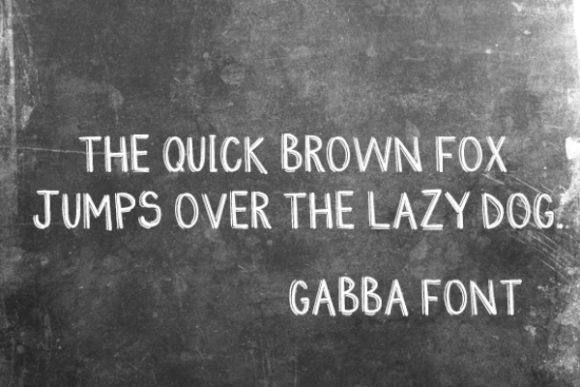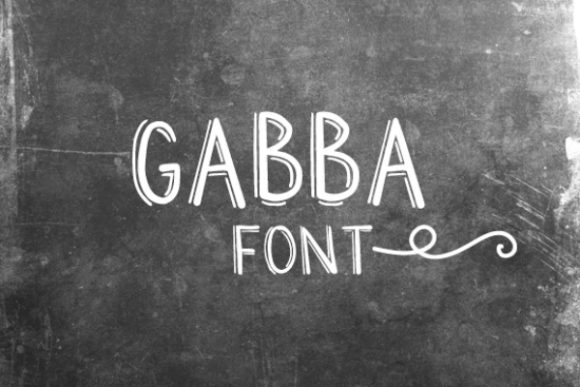
Introducing Gabba Font: The Ultimate Display Font for Creative Projects
Are you a designer, crafter, or DIY enthusiast looking for a font that can add a touch of whimsy and friendliness to your projects? Look no further than Gabba Font! This lovely and cute display font is perfect for a wide range of creative applications, from logos and packaging to branding, greeting cards, and crafting projects.
What Makes Gabba Font So Special?
Gabba Font features a unique and playful design that is sure to capture the attention of your audience. Its whimsical and friendly feel makes it perfect for projects that require a personal touch. Whether you’re creating a logo for a children’s brand, designing a greeting card for a special occasion, or crafting a unique piece of art, Gabba Font is the perfect choice.
Key Features of Gabba Font
- Whimsical and Friendly Feel: Gabba Font features a unique and playful design that is sure to add a touch of personality to your projects.
- Perfect for Display Purposes: With its bold and eye-catching design, Gabba Font is perfect for display purposes, such as logos, headings, and titles.
- Versatile: Gabba Font can be used for a wide range of creative applications, from packaging and branding to greeting cards and crafting projects.
- Easy to Read: Despite its playful design, Gabba Font is easy to read and understand, making it perfect for projects that require a clear and concise message.
Uses for Gabba Font
Gabba Font is a versatile font that can be used for a wide range of creative projects. Here are some ideas to get you started:
- Logos and Branding: Use Gabba Font to create a unique and memorable logo for your business or brand.
- Packaging Design: Add a touch of personality to your packaging with Gabba Font.
- Greeting Cards: Use Gabba Font to create fun and playful greeting cards for special occasions.
- Crafting Projects: Add a personal touch to your crafting projects, such as scrapbooking, journaling, and card making.
- Social Media Graphics: Use Gabba Font to create eye-catching social media graphics that are sure to grab the attention of your audience.
Tips for Using Gabba Font
Here are some tips for using Gabba Font in your creative projects:
- Use it Boldly: Gabba Font is designed to be used boldly, so don’t be afraid to make it big and eye-catching.
- Experiment with Colors: Gabba Font looks great in a variety of colors, so experiment with different hues and shades to find the perfect look for your project.
- Pair it with Other Fonts: Gabba Font pairs well with other fonts, so try pairing it with a serif or sans-serif font to create a unique and interesting look.
Gabba Font is a unique and versatile display font that is perfect for a wide range of creative projects. Its whimsical and friendly feel makes it perfect for designers, crafters, and DIY enthusiasts who want to add a personal touch to their work. With its bold and eye-catching design, Gabba Font is sure to capture the attention of your audience and leave a lasting impression.